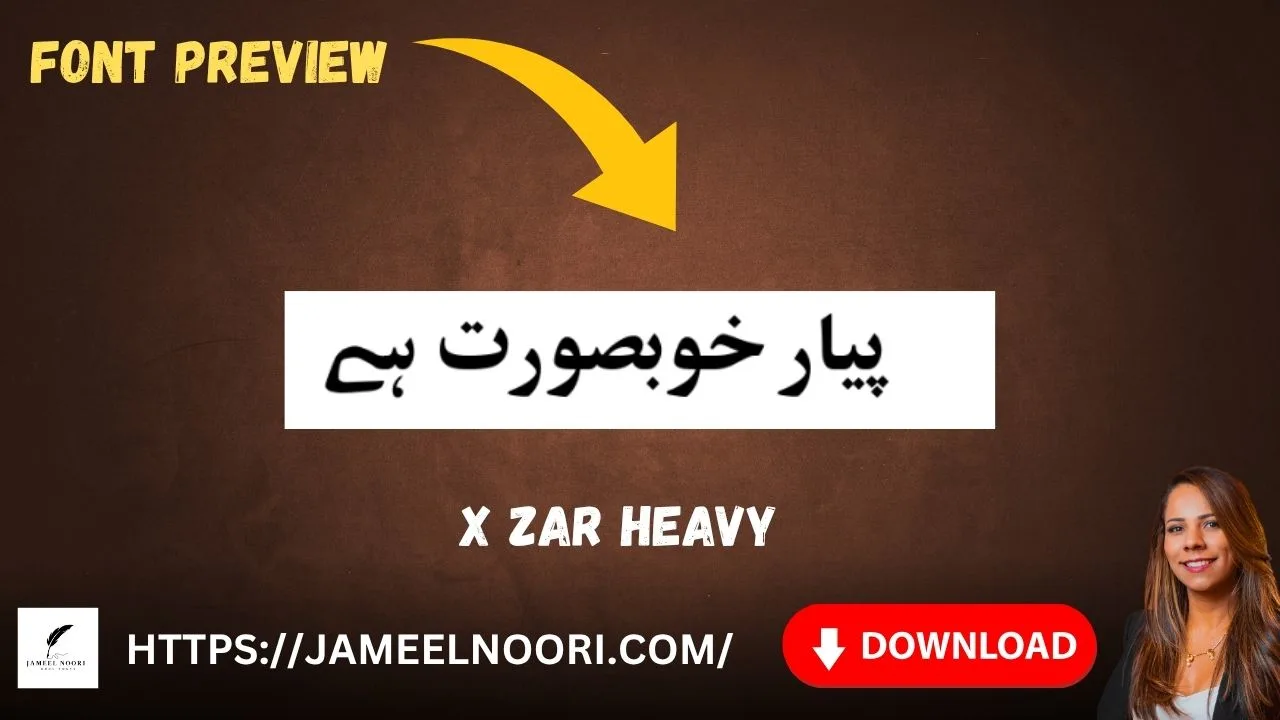
If you’re searching for a bold, heavy, and modern typeface, the X Zar Heavy Font is the perfect choice. Known for its strong visual impact, this TrueType font (TTF) has become one of the most downloaded fonts among Urdu and English graphic designers. With over 10,294 downloads and a solid rating of 4.22 out of 5, it’s clear that X Zar Heavy is a favorite for creating attention-grabbing headlines, logos, and posters.
What is X Zar Heavy Font?
X Zar Heavy is a Heavy TrueType Font designed for powerful typography. It belongs to the X Zar font family, which focuses on clean, bold, and legible letterforms. This typeface is primarily used for display text, advertisements, posters, and digital graphics where bold visibility is essential.
It is not a script or calligraphic font — it’s a modern display font that works equally well in Urdu and English typography. The characters are sharp, bold, and full-bodied, giving your design a strong and professional appeal.
Why Choose X Zar Heavy Font?
- Bold and Eye-Catching Design – Ideal for headlines, banners, and logo designs.
- Versatile Usage – Works well for both Urdu and English scripts.
- High Readability – Even in smaller text sizes, the clarity remains excellent.
- Modern Appeal – Gives your content a stylish and professional touch.
Where to Use X Zar Heavy Font
The X Zar Heavy Font is widely used by content creators, designers, and bloggers who want a bold, elegant, and unique look for their projects. Common use cases include:
- Logo Design – Perfect for strong, brand-focused logos.
- Headlines & Titles – Excellent for large headings and posters.
- Website Banners – Enhances the visibility of banners and CTAs.
- Social Media Posts – Great for attention-grabbing Instagram or Facebook graphics.
- Book Covers & Flyers – Adds a strong, professional appearance.
- Digital Urdu Magazines – Offers clear Urdu text rendering.
X Zar Heavy Font for Urdu & English Typography
The X Zar Heavy font supports Urdu and English letters with elegant curves and solid outlines. This makes it a popular choice for Urdu digital posters, YouTube thumbnails, and educational banners.
If you’re working on bilingual content (Urdu + English), this font maintains harmony between both languages — a rare feature in most display fonts.
X Zar Heavy Font is a fantastic choice for designers looking for a bold and professional TrueType font. Its balance between style, weight, and readability makes it ideal for almost every kind of graphic design — from digital marketing banners to logo creation.
What type of font is X Zar Heavy?
It is a TrueType (TTF) Heavy Display Font.
Can I use this font for Urdu writing?
Yes, it supports Urdu and English characters.